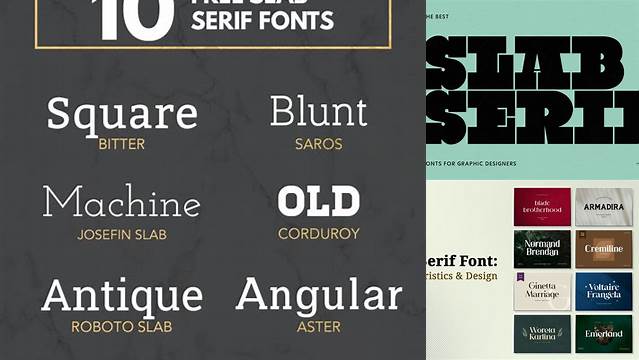
Slab Serif Fonts: Examples & Inspiration
Hey font enthusiasts! Ever wondered about those fonts that look solid, sturdy, and just a bit retro? We're diving deep into the world of slab serif fonts, those awesome typefaces with the bold, blocky serifs that make a statement. In this article, we’ll explore tons of slab serif fonts examples, their history, usage, and why they might just be the perfect choice for your next project. So, let’s get started and geek out over these fantastic fonts, guys!
What are Slab Serif Fonts?
Before we jump into slab serif fonts examples, let’s make sure we’re all on the same page. Slab serif fonts are characterized by their thick, block-like serifs – those little feet or strokes at the end of each letter. Unlike traditional serifs which are often tapered, slab serifs are generally uniform in thickness, giving them a bold and impactful appearance. These fonts often evoke a sense of strength, stability, and vintage charm, making them a favorite for branding, headlines, and even body text in certain contexts. The history of slab serif fonts is fascinating, dating back to the 19th century when they were designed to grab attention in advertising and posters. They were a response to the more delicate and refined typefaces of the time, offering a bold and modern alternative. Today, slab serif fonts examples are found everywhere, from books and magazines to websites and logos, showcasing their versatility and enduring appeal. Understanding the core characteristics and historical context of slab serifs helps us appreciate their unique qualities and how they can be effectively used in various design projects. Whether you're a seasoned designer or just starting out, exploring the world of slab serifs is sure to add a valuable tool to your typographic arsenal.
History of Slab Serif Fonts
The history of slab serif fonts examples is a fascinating journey through the evolution of typography and design. Slab serifs emerged in the early 19th century, during the Industrial Revolution, a time of rapid technological and social change. Advertisers and printers were looking for bold new typefaces that could capture attention in an increasingly crowded marketplace. This led to the development of slab serifs, which were initially known as “Egyptian” fonts due to a fascination with Egyptian aesthetics at the time, following Napoleon’s campaigns in Egypt. These early slab serifs were characterized by their heavy, uniform serifs and strong, blocky forms. They were a stark contrast to the delicate, classical typefaces that had dominated printing for centuries. One of the earliest and most influential slab serif fonts examples is Clarendon, designed by Robert Besley in 1845. Clarendon set a new standard for the genre, offering a more refined and legible take on the slab serif form. Its balanced proportions and clear letterforms made it a popular choice for a wide range of applications, from books to posters. As the 20th century dawned, slab serifs continued to evolve, with designers exploring new variations and styles. The rise of modernism in the mid-20th century brought a renewed appreciation for slab serifs, with designers like Paul Rand and Herb Lubalin incorporating them into their iconic designs. Today, slab serif fonts examples are as relevant as ever, blending vintage charm with modern appeal. Their rich history and enduring popularity make them a staple in any designer’s toolkit. Understanding this history not only enriches our appreciation for slab serifs but also informs how we can use them effectively in contemporary design.
Key Characteristics of Slab Serif Fonts
When we talk about slab serif fonts examples, it’s essential to understand the key characteristics that define them. The most distinctive feature, of course, is the slab serif itself. Unlike the tapered serifs of traditional typefaces, slab serifs are thick, block-like extensions at the ends of letter strokes. This gives them a bold and assertive appearance, making them ideal for headlines, branding, and any application where you want to make a strong visual impact. Another defining characteristic of slab serifs is their uniform stroke weight. This means that the thickness of the letter strokes remains consistent throughout the typeface, contributing to the font’s overall solidity and legibility. This uniformity is particularly noticeable when compared to other serif fonts, which often have varying stroke weights to create contrast and visual interest. Slab serif fonts examples also tend to have a more geometric and angular structure compared to their more fluid and organic serif counterparts. This geometric quality adds to their modern and industrial feel, making them a popular choice for designs that need to convey strength and reliability. However, not all slab serifs are created equal. There’s a wide range of styles within the genre, from the classic Clarendon with its refined serifs and balanced proportions to the more rugged and industrial typefaces like Rockwell. Understanding these nuances is key to choosing the right slab serif for your project. Whether you’re aiming for a vintage vibe or a contemporary edge, the key characteristics of slab serifs make them a versatile and powerful tool in the world of typography.
Best Uses for Slab Serif Fonts
So, where do slab serif fonts examples really shine? Slab serif fonts are incredibly versatile and can be used in a wide range of design projects. Their bold and impactful appearance makes them particularly well-suited for headlines and titles. A slab serif headline can instantly grab attention and convey a sense of strength and authority. Think about the headlines in a magazine or the title of a book – a well-chosen slab serif can make all the difference. In branding, slab serif fonts can help create a strong and memorable identity. Many companies use slab serifs in their logos and marketing materials to project an image of reliability, trustworthiness, and heritage. For example, the IBM logo uses a slab serif font, conveying a sense of stability and technological prowess. Slab serif fonts examples are also excellent for signage and wayfinding systems. Their legibility and boldness make them easy to read from a distance, ensuring that your message is clear and effective. Think about the signage in a museum or the directory in an office building – slab serifs are often the font of choice. While slab serifs are not traditionally used for body text, there are exceptions. In certain contexts, such as short paragraphs or captions, a slab serif can add a touch of character and visual interest. However, it’s important to ensure that the font remains legible and doesn’t tire the reader’s eyes. Ultimately, the best uses for slab serif fonts depend on the specific project and the message you want to convey. Their unique blend of strength, character, and vintage charm makes them a valuable asset in any designer’s toolkit.
Popular Slab Serif Font Examples
Let's dive into some slab serif fonts examples that you've probably seen around, and maybe even admired! There's a whole world of slab serif goodness out there, each with its own unique personality. One of the most iconic slab serifs is Clarendon. Designed in the mid-19th century, Clarendon is known for its refined and elegant appearance, making it a versatile choice for both headlines and body text. Its balanced proportions and clear letterforms have stood the test of time, and it remains a popular choice today. Another classic slab serif fonts examples is Rockwell. With its geometric and industrial feel, Rockwell is a bold and assertive typeface that commands attention. It's often used in logos and signage, where its strong presence can make a lasting impression. If you're looking for something with a more vintage vibe, check out Archer. Designed for Martha Stewart Living magazine, Archer has a friendly and approachable feel, thanks to its rounded serifs and slightly condensed letterforms. It's a great choice for projects that need a touch of warmth and personality. For a modern take on the slab serif, consider Roboto Slab. As part of the popular Roboto family, Roboto Slab combines the readability of a slab serif with a contemporary design aesthetic. It's a versatile option for both print and digital applications. Slab serif fonts examples also include Courier New, a monospaced font often associated with typewriters. While it might not be the most elegant choice, Courier New has a nostalgic charm and can be effective in certain contexts, such as coding or technical documentation. These are just a few of the many fantastic slab serif fonts available. Exploring different options and experimenting with how they look in various designs is key to finding the perfect fit for your project.
Clarendon: A Classic Slab Serif
When discussing slab serif fonts examples, Clarendon invariably comes up as a true classic. Designed in 1845 by Robert Besley, Clarendon is often considered the quintessential slab serif typeface. Its design struck a perfect balance between the bold, attention-grabbing nature of slab serifs and the refined legibility of traditional serifs. This balance is what has given Clarendon its enduring appeal and versatility. What sets Clarendon apart from other slab serif fonts examples is its carefully crafted letterforms. The serifs are strong and distinct but not overly heavy, giving the typeface a sense of authority without sacrificing readability. The proportions are well-balanced, and the overall design is both elegant and functional. Clarendon’s impact on the world of typography cannot be overstated. It quickly became a popular choice for a wide range of applications, from books and newspapers to posters and advertisements. Its versatility made it a staple in printing houses around the world. Today, Clarendon is still widely used, both in its original form and in various revivals and adaptations. It remains a popular choice for branding, headlines, and even body text in certain contexts. The font's timeless appeal and clear legibility make it a reliable option for projects that need to convey a sense of tradition, authority, and clarity. Exploring slab serif fonts examples often leads back to Clarendon, a testament to its enduring design excellence. Whether you’re a seasoned designer or just starting out, Clarendon is a slab serif that’s worth getting to know.
Rockwell: A Geometric Slab Serif
Moving on from the classic Clarendon, let’s explore another significant entry in the world of slab serif fonts examples: Rockwell. Rockwell stands out as a prime example of a geometric slab serif, a style that emphasizes clean lines, sharp angles, and a strong, industrial feel. This typeface is characterized by its uniform stroke weight and blocky serifs, which give it a bold and assertive presence. Rockwell was designed in the early 20th century and quickly gained popularity for its modern and functional aesthetic. It's a slab serif that doesn't shy away from making a statement, making it an excellent choice for projects that require a strong visual impact. What makes Rockwell unique among slab serif fonts examples is its geometric construction. The letterforms are built on simple shapes, creating a sense of order and precision. This geometric quality gives Rockwell a distinctively modern look, even though it was designed decades ago. Rockwell’s bold and assertive nature makes it a popular choice for logos, signage, and headlines. Its strong presence can help a brand project an image of strength, reliability, and innovation. In advertising, Rockwell is often used to grab attention and convey a sense of authority. While Rockwell might not be the best choice for extended body text due to its strong presence, it can be highly effective in shorter blocks of text, such as captions or pull quotes. When considering slab serif fonts examples, Rockwell offers a compelling option for designers seeking a typeface with a modern, industrial edge. Its geometric forms and bold appearance make it a standout choice for projects that demand attention.
Archer: A Friendly Slab Serif
If you’re looking for slab serif fonts examples that feel a bit more approachable and warm, Archer is definitely one to consider. Designed by Tobias Frere-Jones and Jonathan Hoefler for Martha Stewart Living magazine in 2001, Archer brings a friendly and inviting personality to the slab serif world. Its unique charm lies in its rounded terminals and slightly condensed letterforms, which give it a softer and more human touch compared to some of the more rigid slab serifs. What sets Archer apart from many other slab serif fonts examples is its versatility. While it's undoubtedly a slab serif, it doesn't come across as overly bold or imposing. Instead, it strikes a balance between strength and approachability, making it suitable for a wide range of applications. Archer’s friendly demeanor makes it a popular choice for branding and editorial design. Its warm and inviting feel can help a brand connect with its audience on a more personal level. In magazines and websites, Archer can add a touch of personality to headlines and body text alike. One of the key features of Archer is its extensive family of weights and styles. This versatility allows designers to use Archer in a variety of contexts, from delicate captions to bold headlines. When exploring slab serif fonts examples, Archer stands out as a typeface that combines the strength and stability of a slab serif with a warm and friendly personality. Its unique character makes it a valuable asset in any designer's toolkit.
Roboto Slab: A Modern Slab Serif
In the realm of slab serif fonts examples, Roboto Slab offers a contemporary twist on a classic form. Part of the larger Roboto family designed by Christian Robertson, Roboto Slab combines the readability and versatility of a slab serif with a modern design aesthetic. This typeface is characterized by its clean lines, open forms, and a subtle hint of geometric influence. What distinguishes Roboto Slab from other slab serif fonts examples is its emphasis on legibility and clarity. Roboto Slab was designed with digital environments in mind, making it an excellent choice for websites, apps, and other on-screen applications. Its open letterforms and balanced proportions ensure that it remains readable even at smaller sizes. Roboto Slab’s modern design aesthetic makes it a versatile choice for a wide range of projects. It works well for headlines, body text, and branding materials. Its clean and contemporary feel can help a brand project an image of innovation and sophistication. One of the key advantages of Roboto Slab is its extensive family of weights and styles. This versatility allows designers to create visual hierarchies and add emphasis to their designs. The font also pairs well with other members of the Roboto family, providing a cohesive typographic system. When considering slab serif fonts examples, Roboto Slab offers a compelling option for designers seeking a typeface that combines modern design with classic legibility. Its clean lines and contemporary feel make it a valuable addition to any designer’s font library.
Slab Serif Fonts and Readability
Readability is a crucial factor in typography, especially when it comes to selecting a font for body text. While slab serif fonts examples are often celebrated for their bold presence and visual impact, their readability can vary depending on the specific typeface and how it's used. Slab serifs have thick, block-like serifs that can either enhance or detract from readability, depending on the design and context. Some slab serifs, like Clarendon, are known for their excellent readability due to their balanced proportions and refined letterforms. Others, like Rockwell, with their strong geometric forms, may be less suitable for extended reading. The key to using slab serifs effectively for readability is to choose a typeface that has clear letterforms and sufficient spacing between letters and lines. Overly condensed or tightly spaced slab serifs can be difficult to read, especially in long passages of text. Slab serif fonts examples with open counters (the enclosed or partially enclosed negative space in letters like